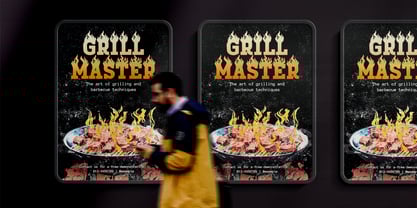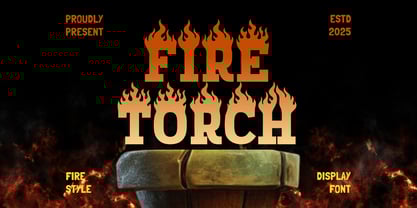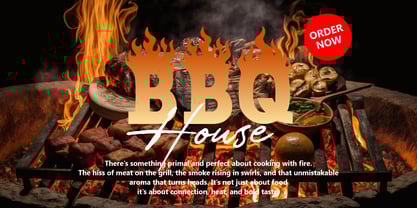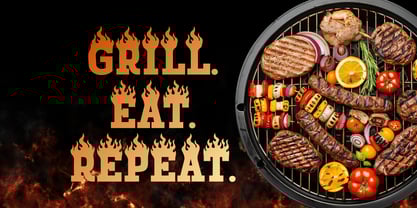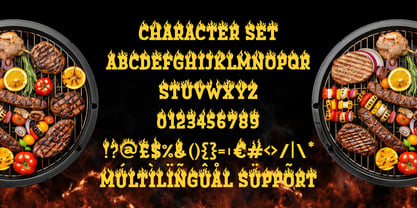
Fire Torch
The Fire Torch Font Family was designed by Yesie Erma Yunita and published by Shanaf. Fire Torch contains 1 styles. More about this family
Fire Torch Flame Font delivers a powerful display style built for designs that need heat, strength, and dramatic impact. Its letterforms are tall, blocky, and heavy, giving each character a solid and commanding presence. The defining feature is the flame-inspired detailing on the top of every glyph, shaped with sharp curves and energetic movement. These flame strokes create a dynamic silhouette while keeping the structure readable and balanced. The font feels bold, rugged, and expressive, perfect for themes that embrace fire, grilling, heat, or strong emotional energy. Fire Torch Flame Font blends vintage display strength with a modern boldness that works beautifully for standout headings and themed branding. This font is ideal for BBQ branding, grill restaurants, food promotions, advertising, posters, film titles, and bold packaging. Its heavy weight ensures strong visibility from afar, while the flame details add personality and thematic storytelling. Designers can use it for event posters, business logos, magazine covers, stickers, and signage that needs to evoke heat, intensity, and excitement. Fire Torch Flame Font offers a unique, thematic aesthetic that enhances any visual project with fierce confidence and dramatic flair. It’s crafted for creatives who want a typeface that immediately sparks attention and enriches every message with fiery attitude.